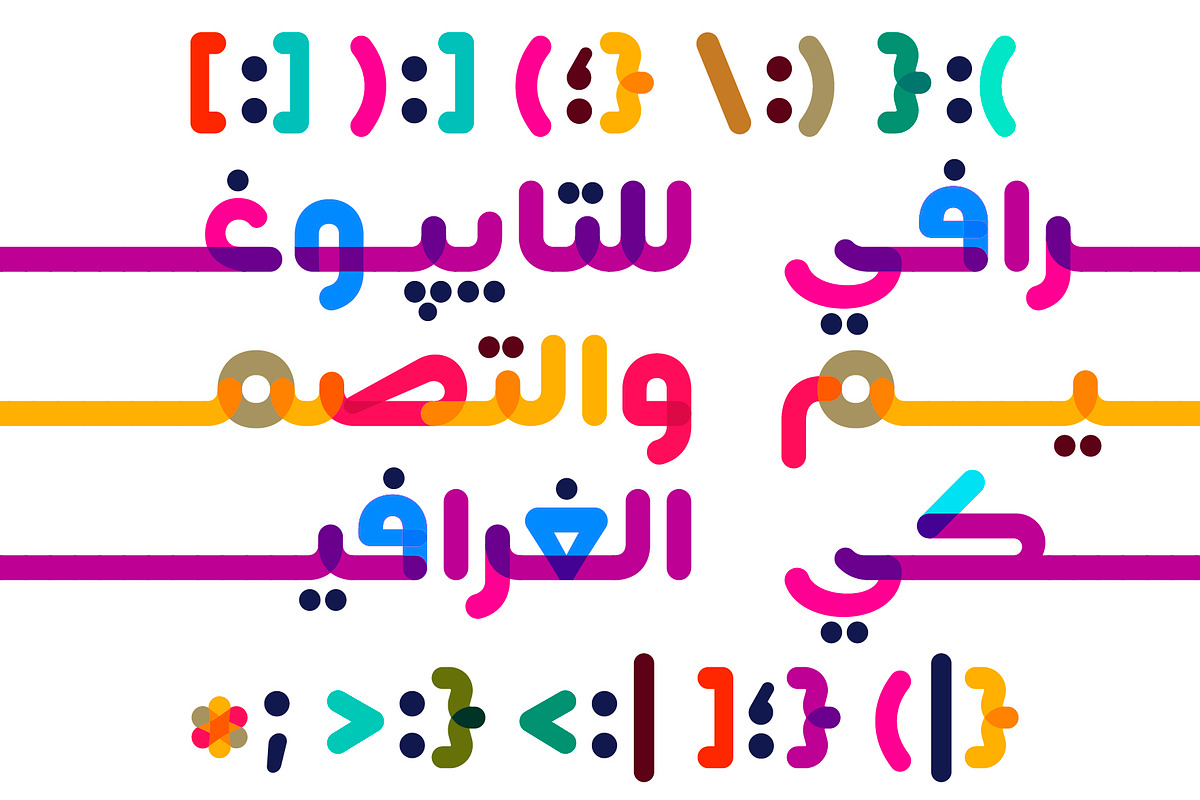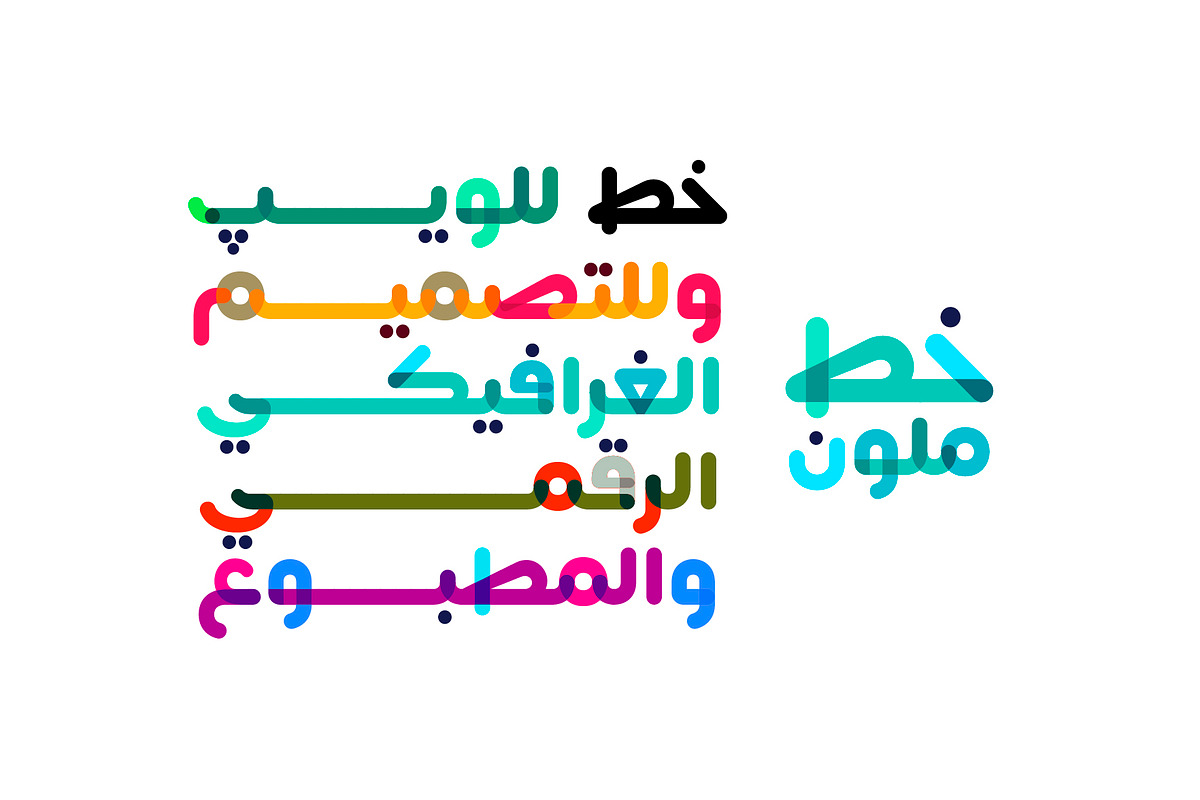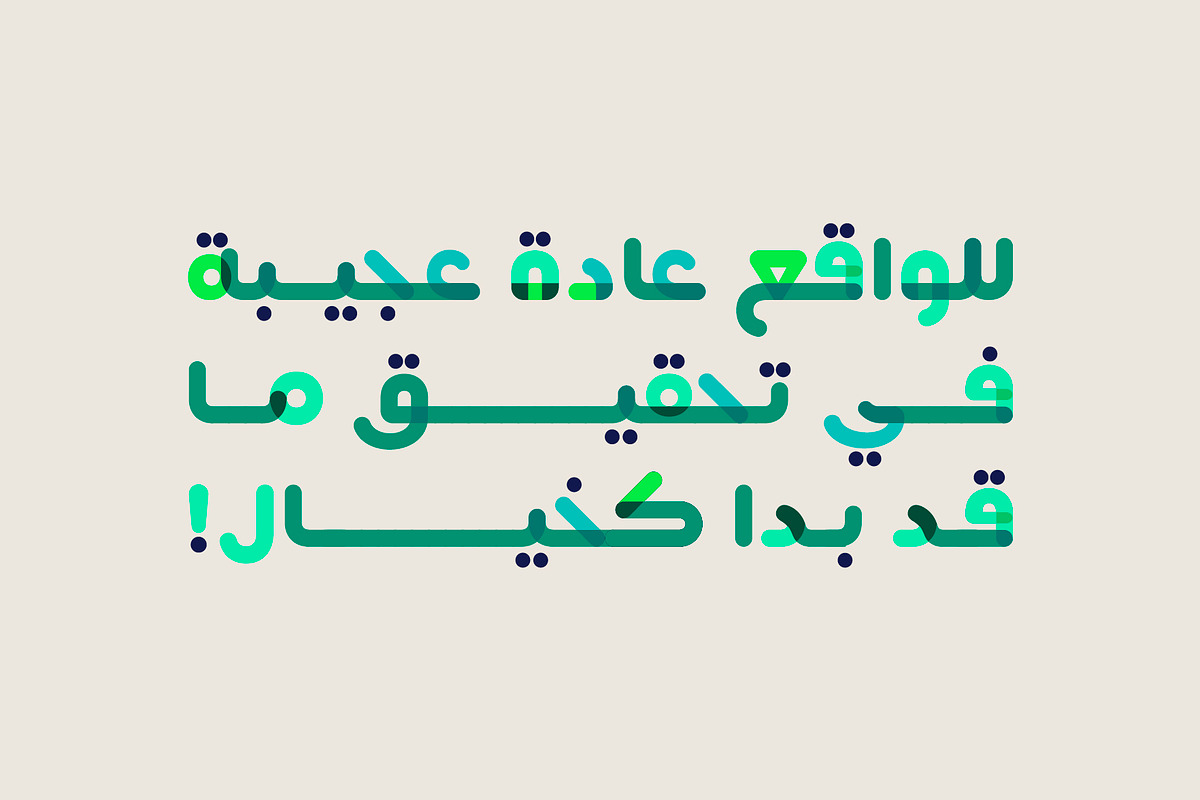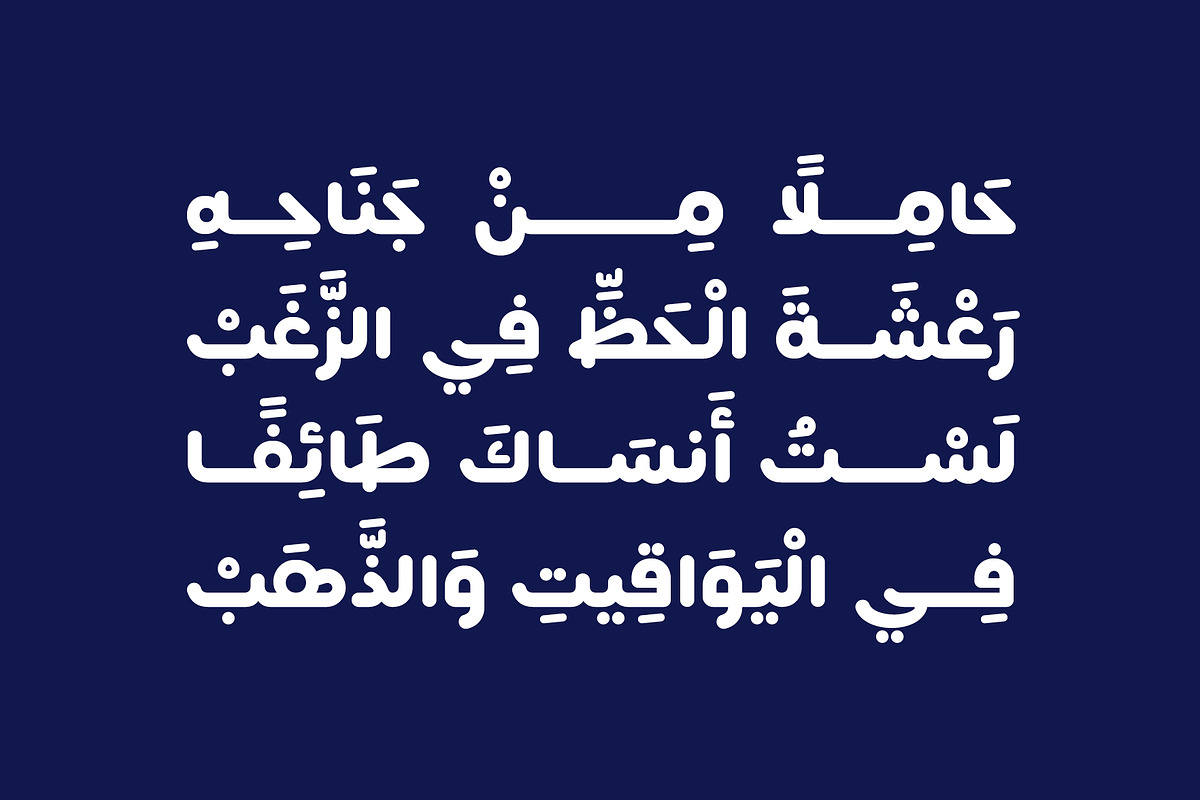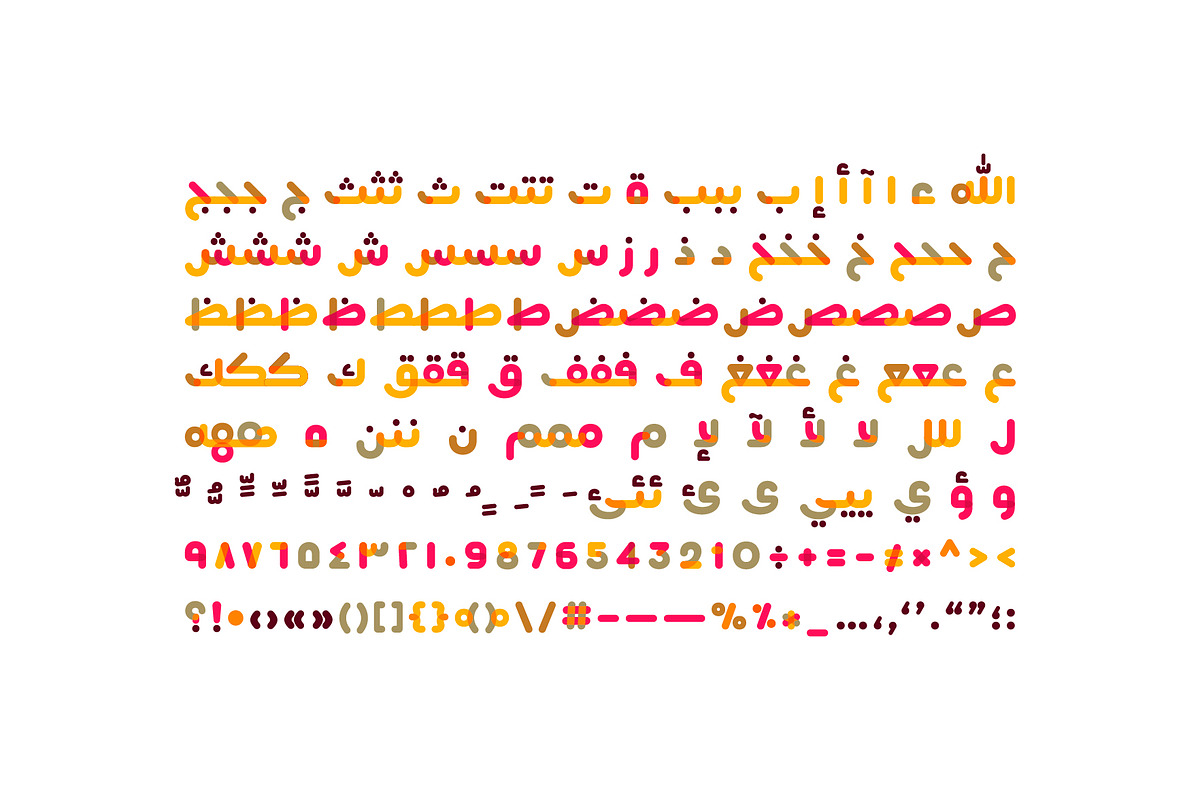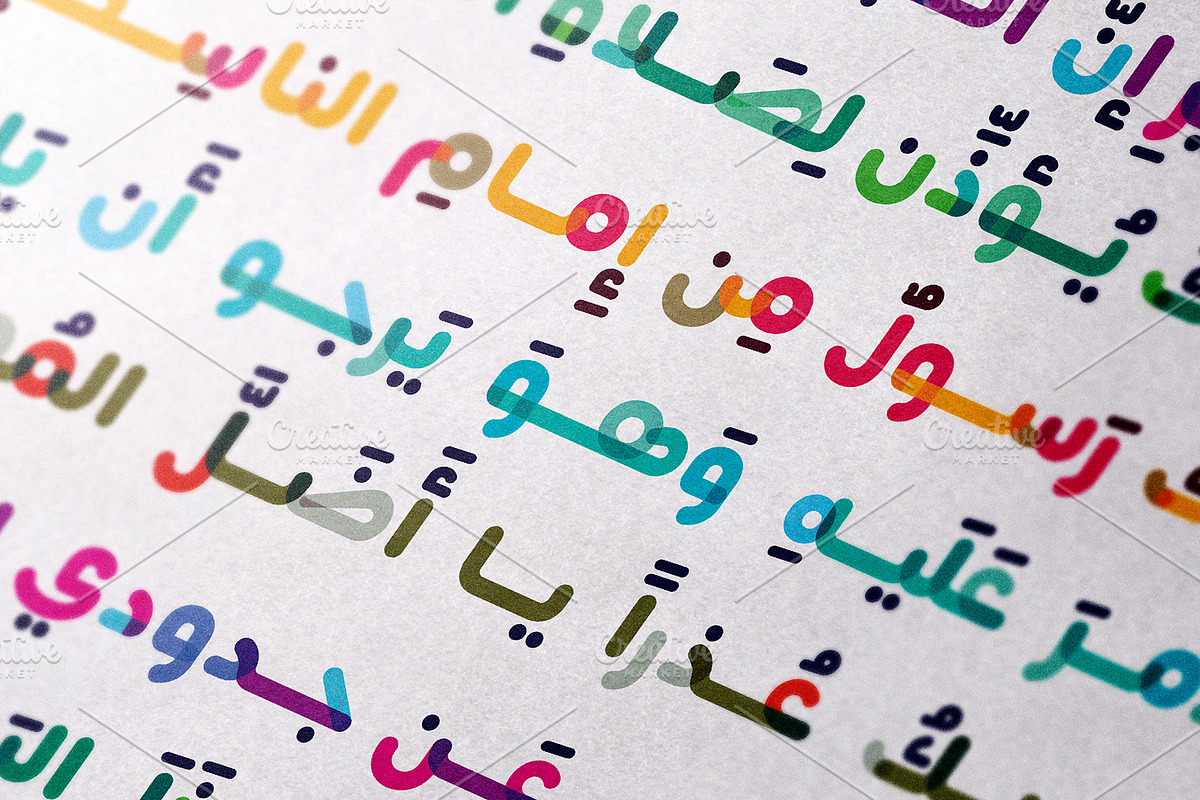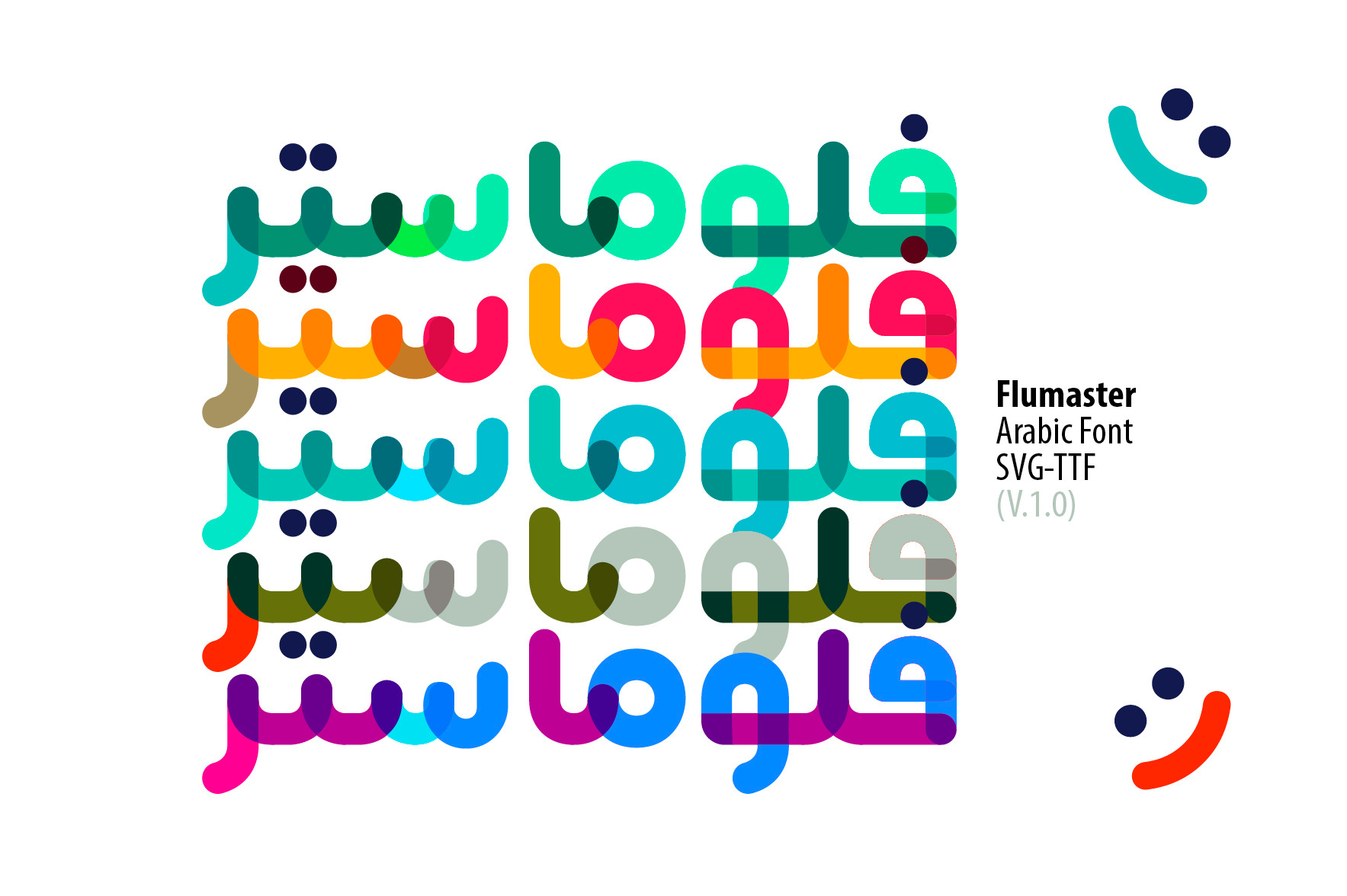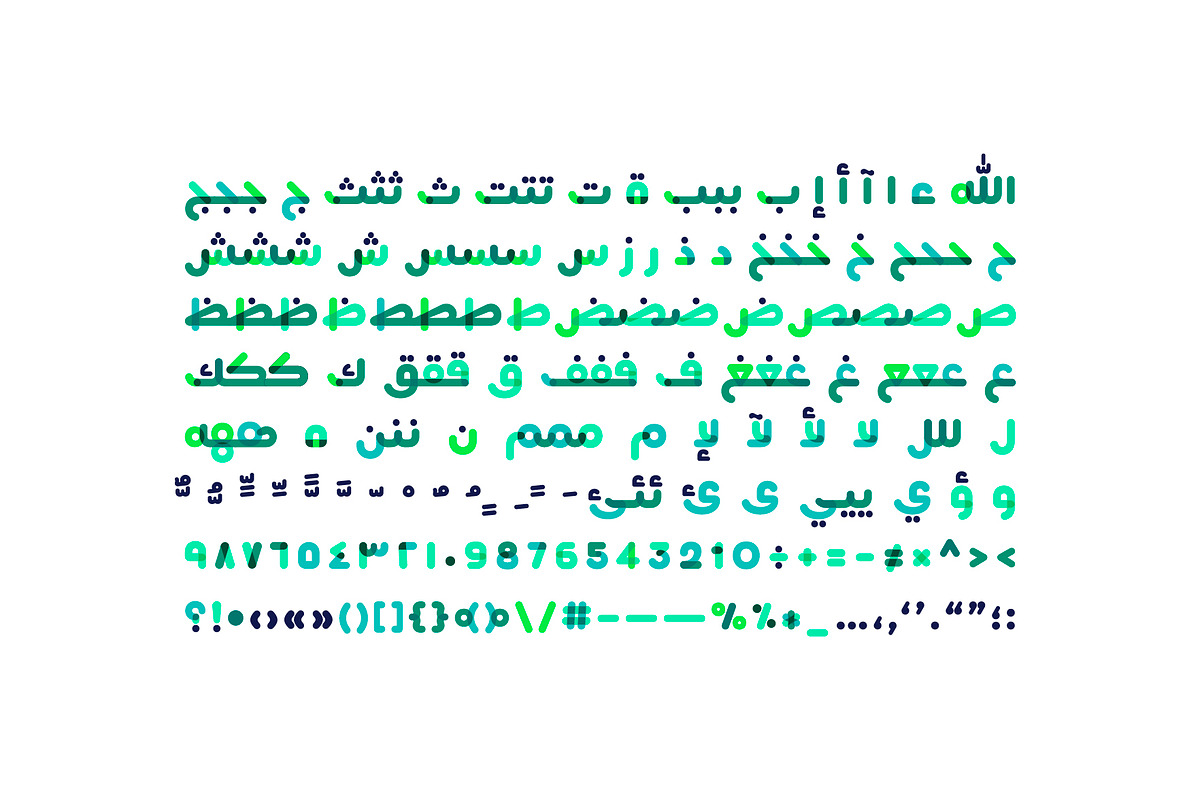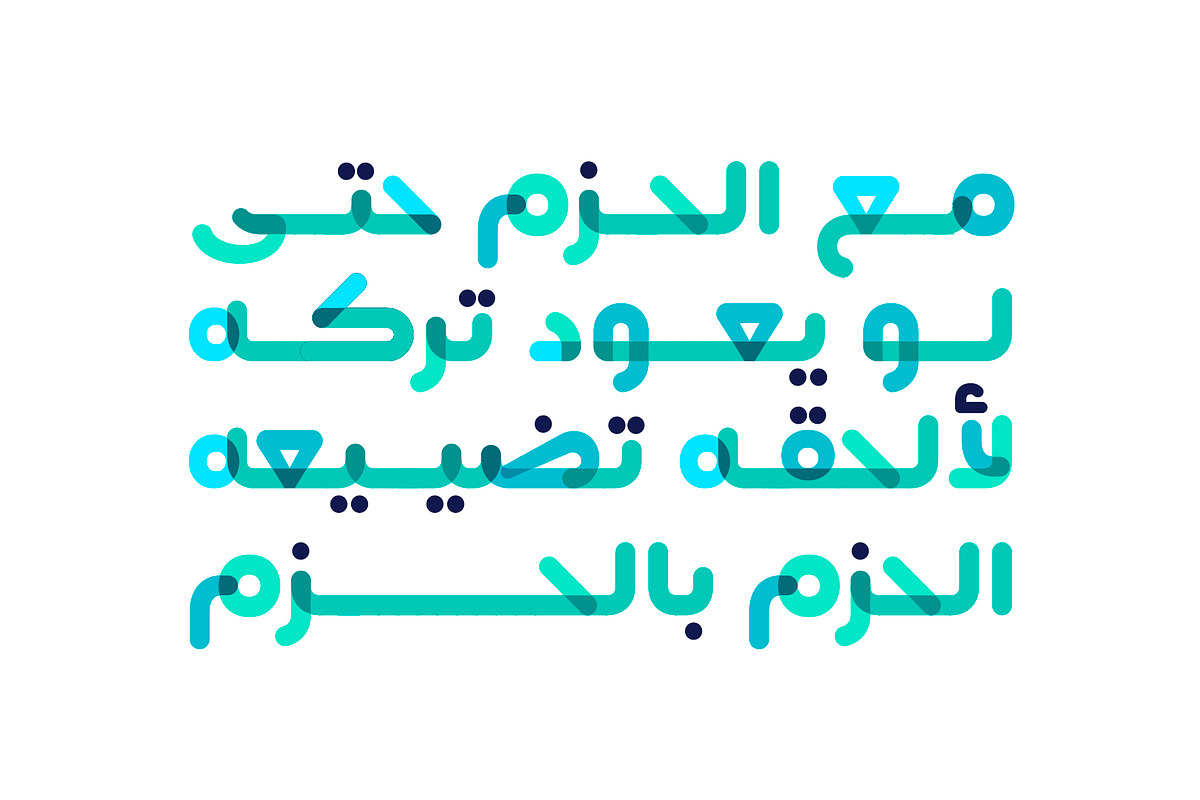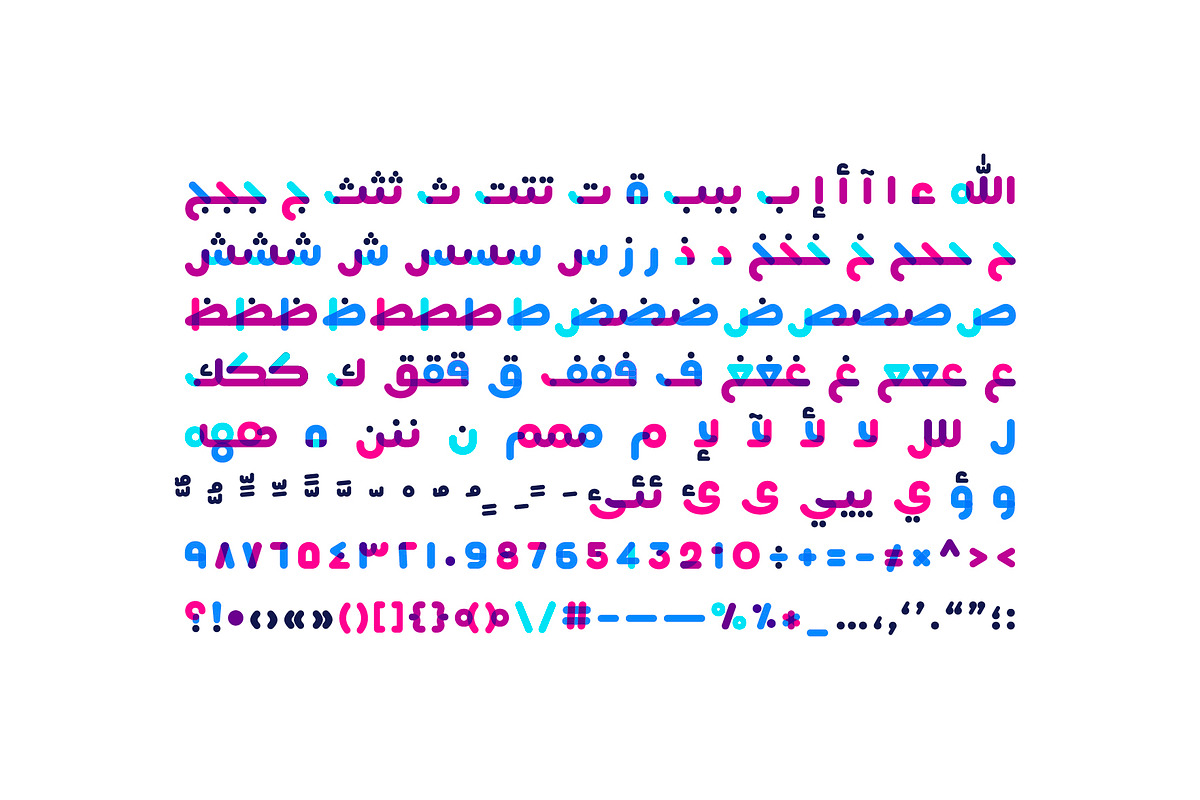
Flumaster - Arabic Color Font
Flumaster is an Arabic display font that is inspired by the bright vibrant colors of the widely known tip fibre pens. Flumaster is suitable for all creative projects including web, print and mobile applications.